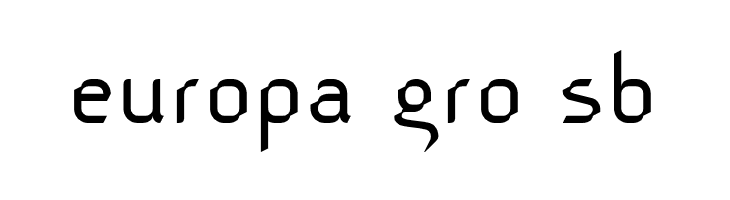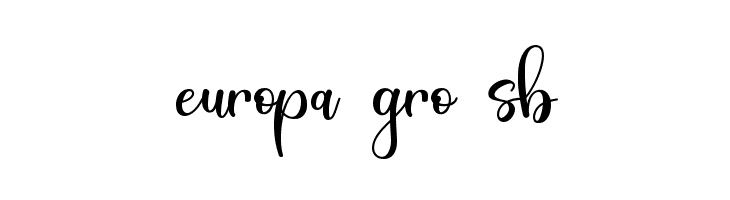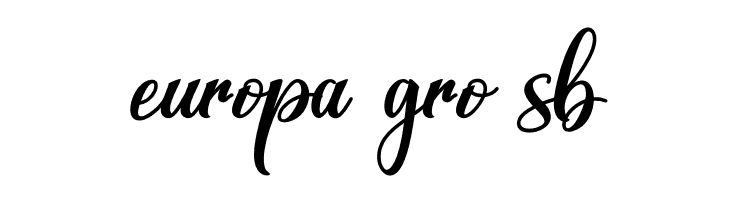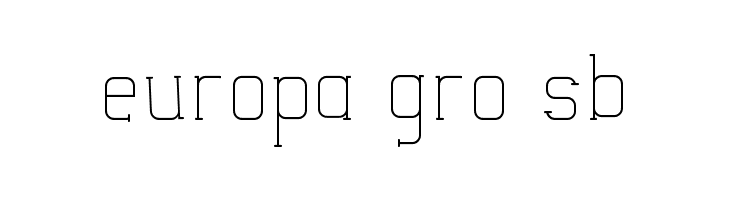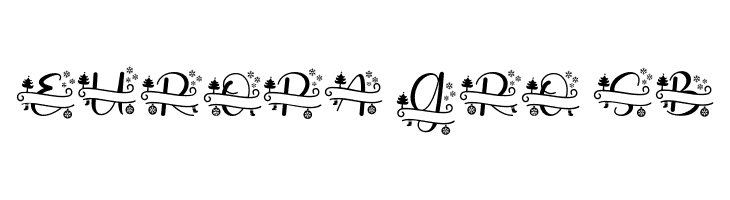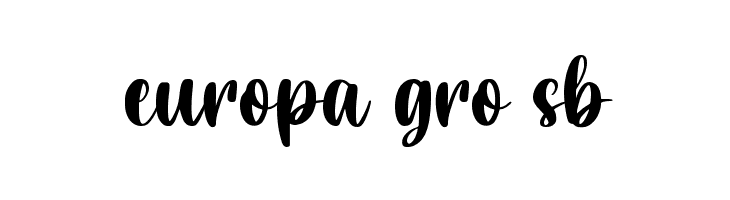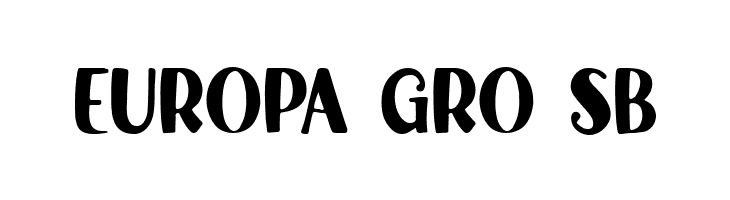
A modern, geometric font with angular, futuristic styling.
A festive, cursive font with elegant loops and swirls, perfect for holiday themes.
An elegant, flowing script font with dynamic curves and decorative flourishes.
A modern, geometric font with thin lines and a minimalist aesthetic.
A playful, energetic font with script and sans-serif elements, ideal for festive designs.
A festive, decorative font with holiday-themed embellishments.
A bold, flowing script font with elegant curves and artistic flourishes.
A festive, cursive font with elegant loops and swirls, perfect for holiday themes.
A decorative and bold font with playful swirls and flourishes.
A festive, ornament-adorned font perfect for holiday projects.